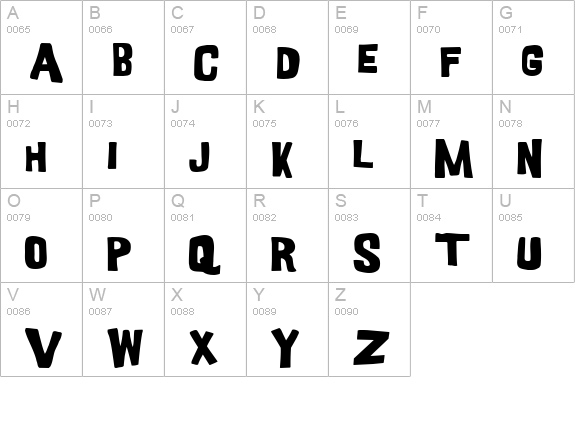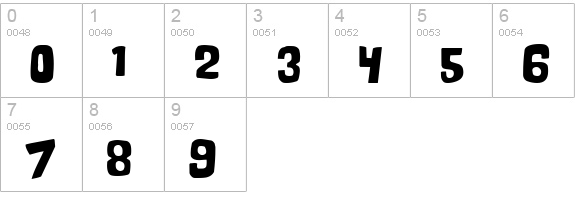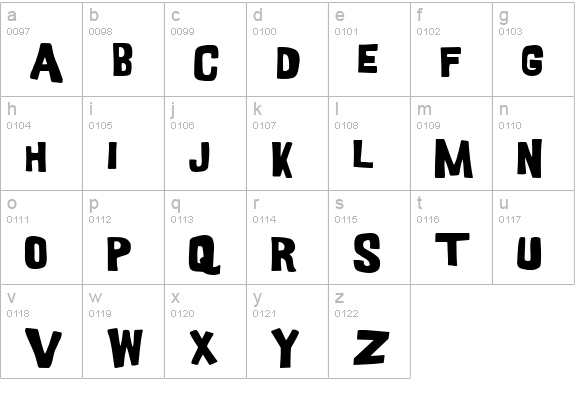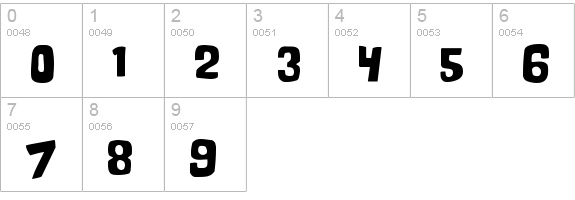
GoodGirl Font Details
Introducing GoodGirl font, a delightful and charming typeface that exudes a sense of innocence and playfulness. This font is perfect for projects that require a touch of whimsy and a friendly, approachable feel. GoodGirl features smooth lines and rounded edges, giving it a soft and inviting appearance. Its versatility makes it suitable for a wide range of design projects, from greeting cards to children's books to branding materials. The best part? GoodGirl font is completely free to download at FontsMarket.com, making it accessible to designers and creatives everywhere. Whether you're working on a personal project or a professional assignment, GoodGirl font is sure to add a touch of sweetness and charm to your designs. Download it today and let your creativity shine with this lovely and free typeface.